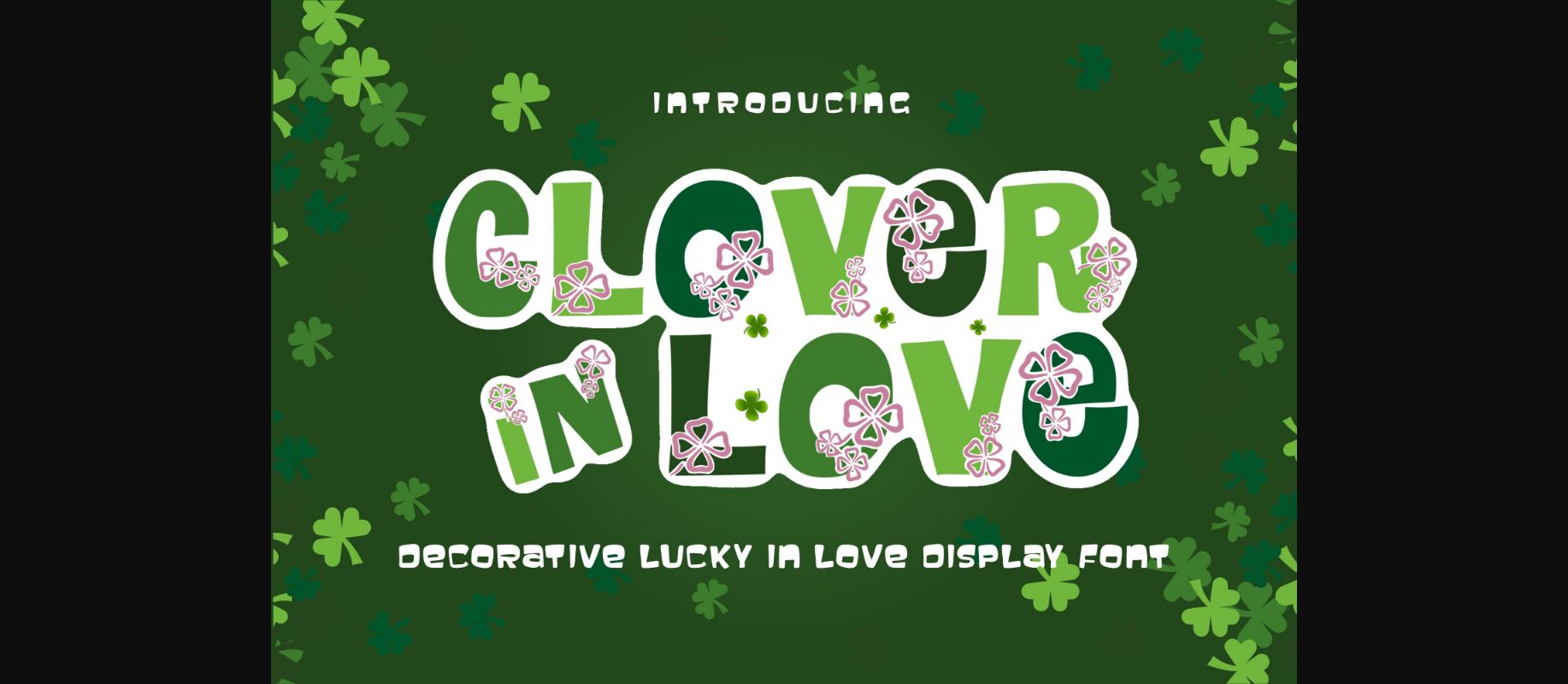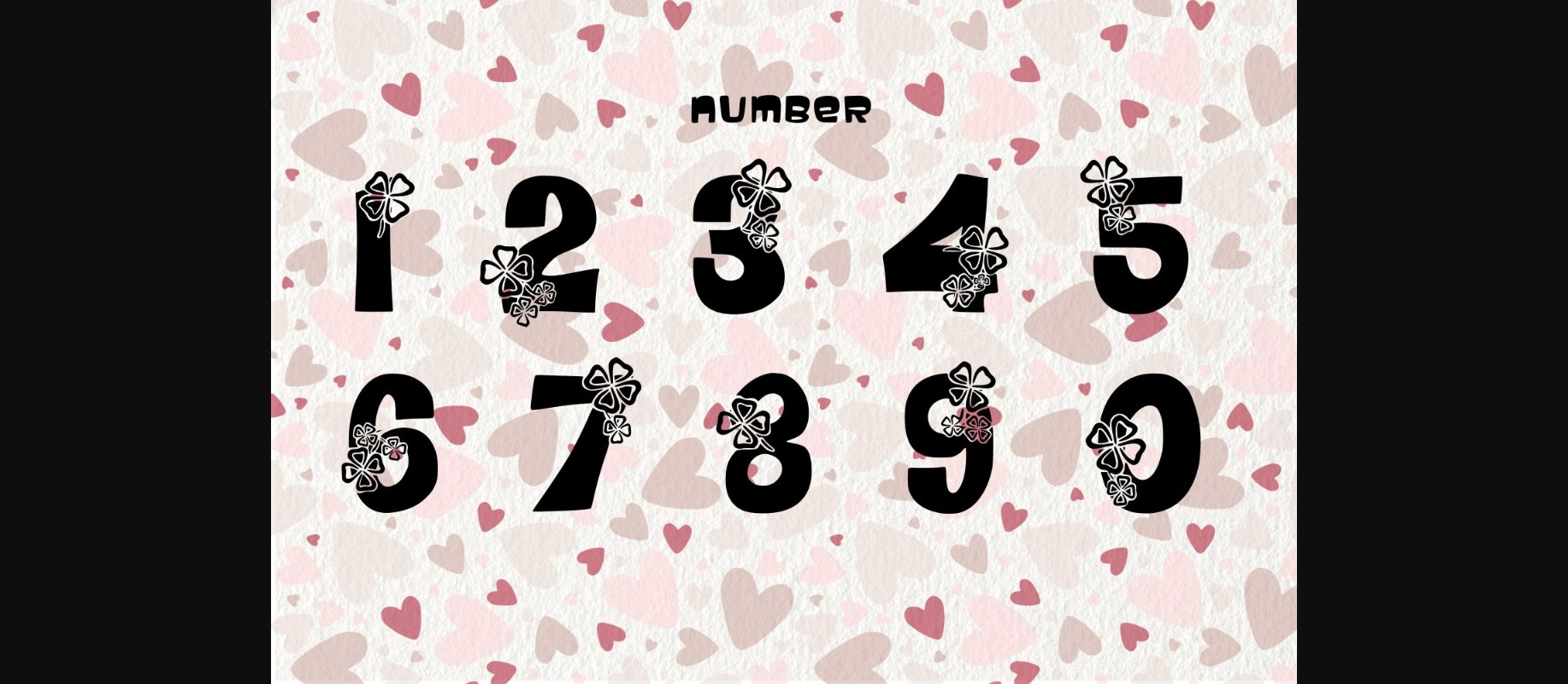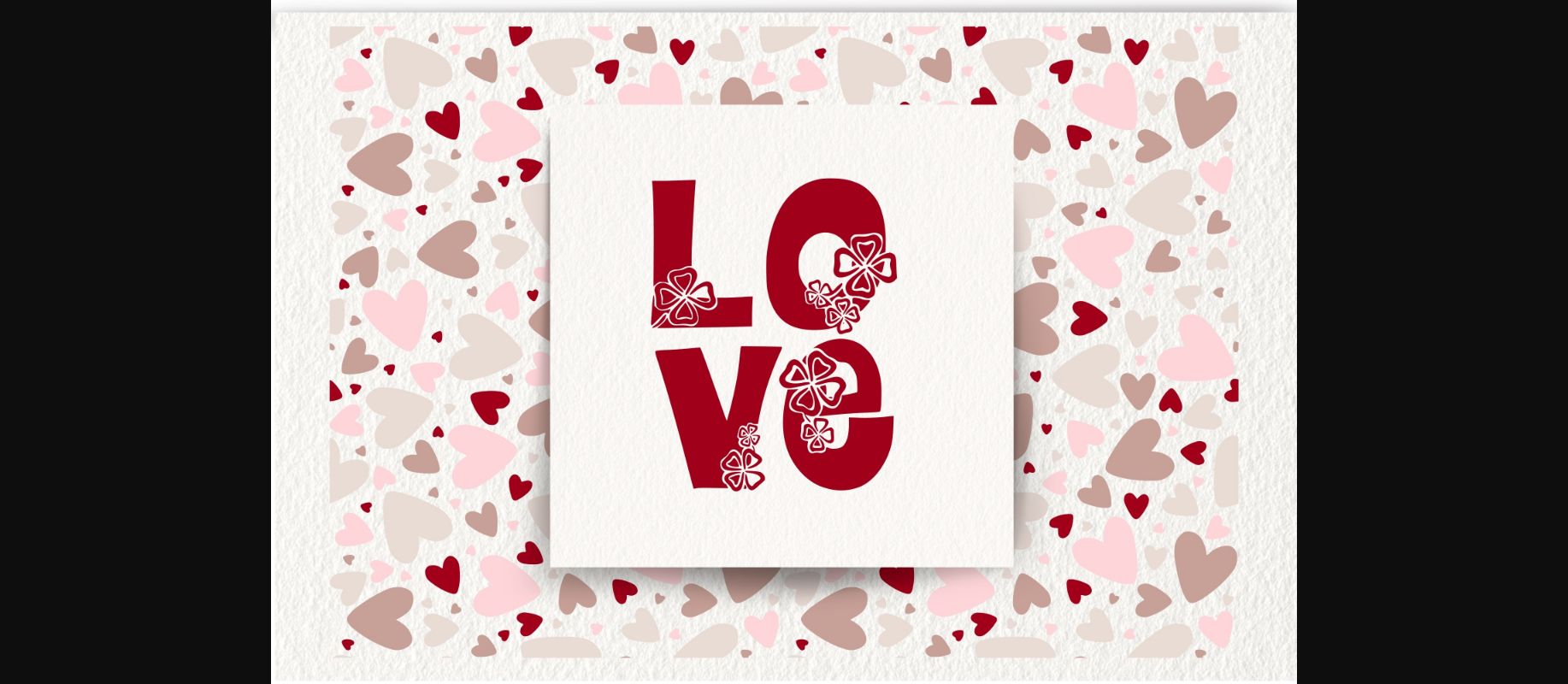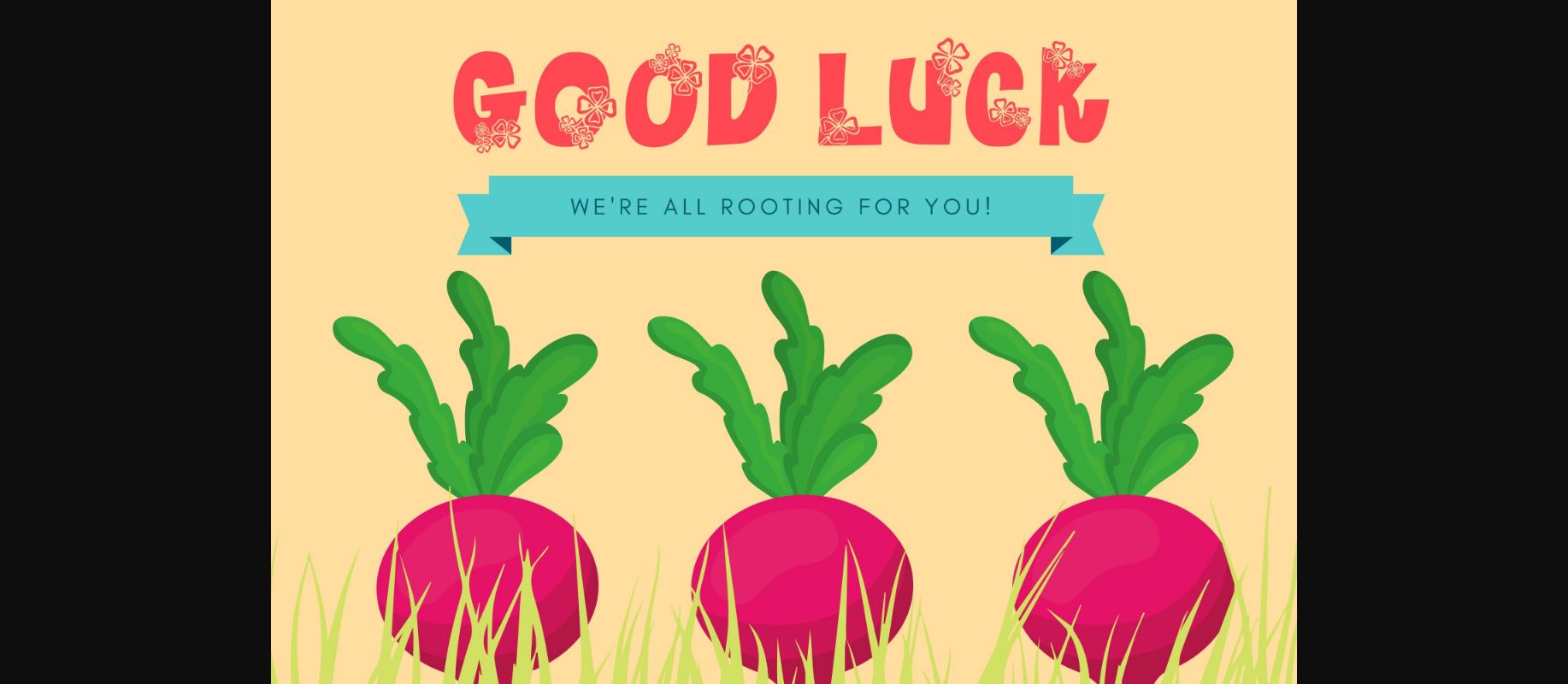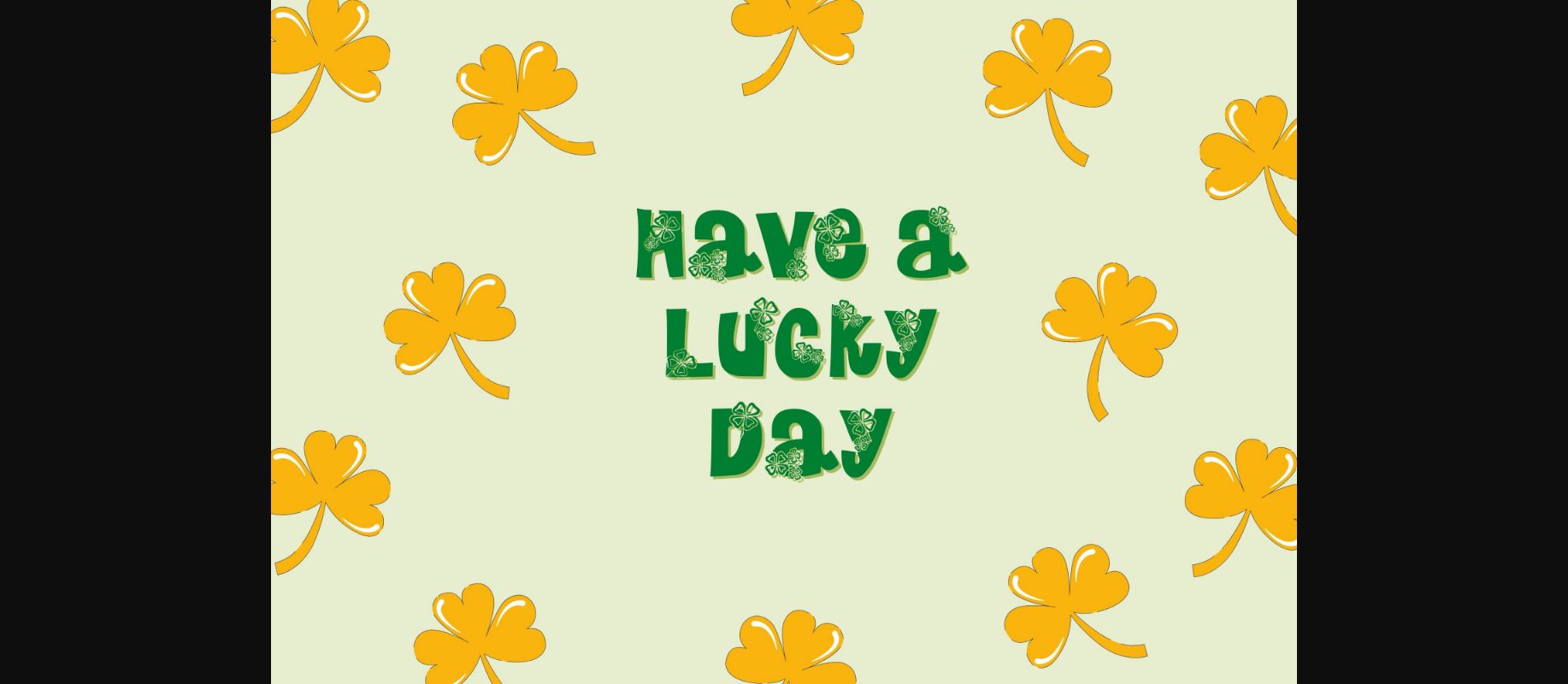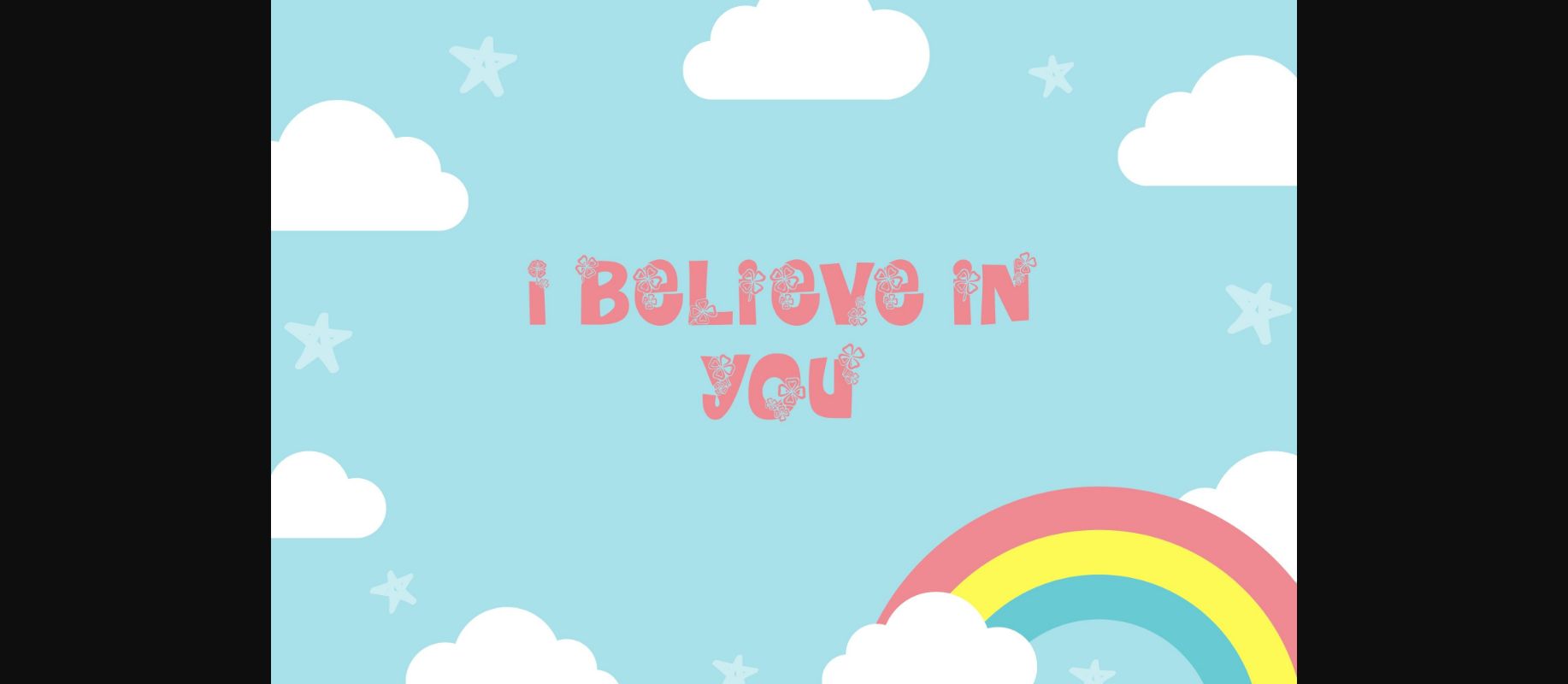
Clover in Love Font
About Clover in Love Font
Clover in Love is a cool and neat decorative font. Add it confidently to your favorite creations and let yourself be amazed by the outcome generated.